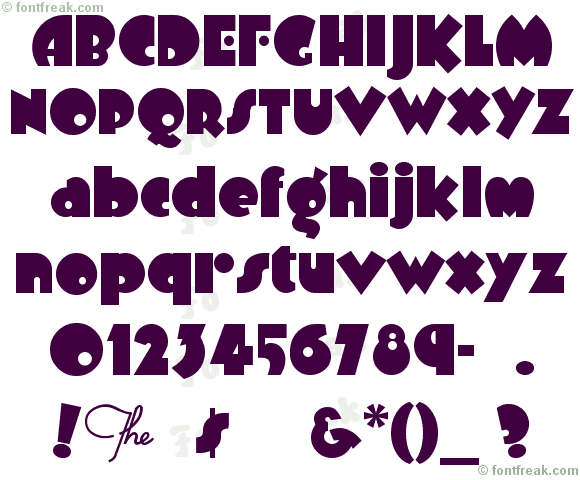
ArbuckleRemix
About Arbucle Remix
Arbucle Remix, a distinctive creation by Nick Curtis, is a unique display font that combines playfulness with a touch of sophistication. This font, categorized as a decorative typeface, features bold strokes and a lively personality that captures attention. The design showcases a moderate contrast in stroke weight, lending a dynamic quality to each character. With generous spacing between letters, Arbucle Remix ensures readability while maintaining its artistic flair, making it suitable for various creative applications.
Visual characteristics of Arbucle Remix include rounded edges and whimsical curves that add a friendly and inviting feel to any design. The font's playful nature makes it ideal for vibrant projects, such as children’s book covers, event flyers, and merchandise aimed at a younger audience. It also shines in advertising campaigns for trendy cafes or boutiques, where its engaging style can attract customers. Additionally, Arbucle Remix is a fantastic choice for social media graphics, where eye-catching typography can enhance user engagement.
Target audiences for Arbucle Remix range from graphic designers seeking an eye-catching typeface for their latest projects to small business owners wanting to create a memorable brand identity. Content creators can also benefit from this font when crafting unique visual content for websites, blogs, or online portfolios.